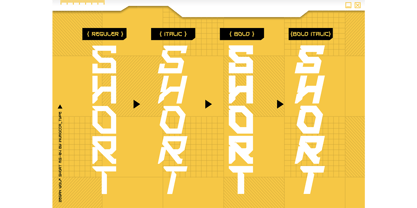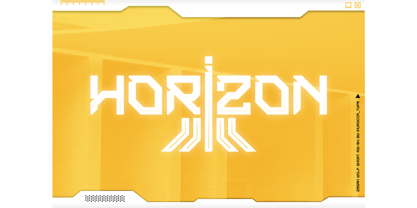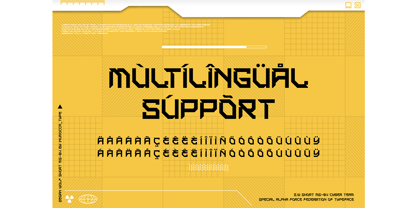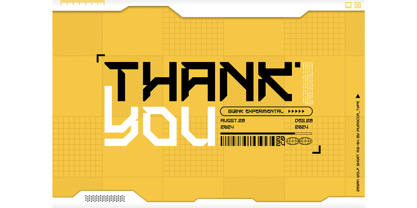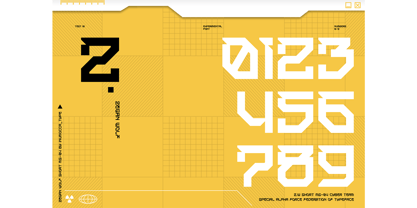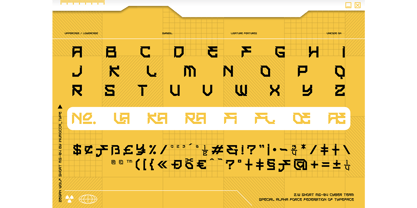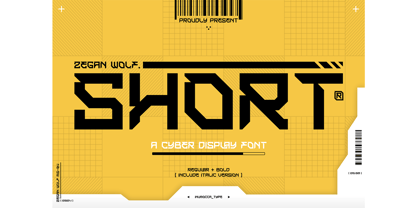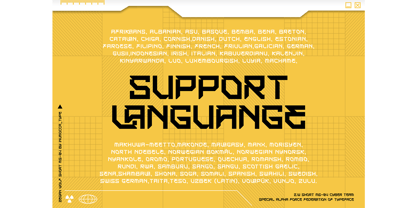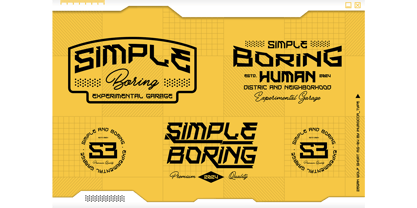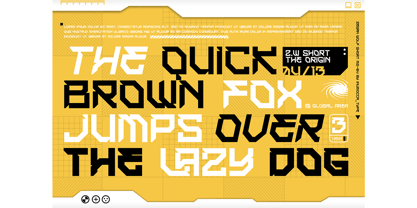
Zegan Wolf Short
by Inumocca
The Zegan Wolf Short Font Family was designed by Inu Mocca and published by Inumocca. Zegan Wolf Short contains 4 styles and family package options. More about this family
Z.W Short a Cyber Display Font Inspiration by Game Poster, futuristic design, Modern Technology, Synthwave, Sci-fi Movie Poster, science and Space Theme. Really great font to covering your Project, like poster Game, mecha poster, logotype, Website Interface, Magazine, Branding, Logos, and more your project design. - Unique glyphs - Multilingual Characters - UPPERCASE - Lowercase - Numeric - Symbol - Punctuation Character - PUA encoded - Ligature Feature inumocca type